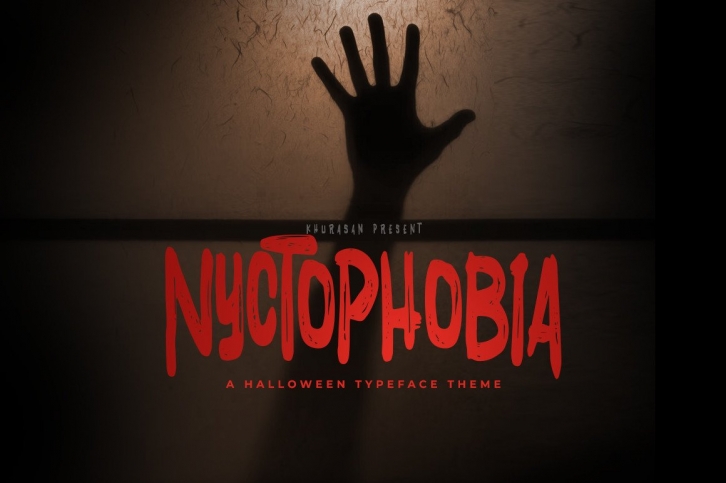
The Nyctophobia is a unique and attractive display font. Oddly enough, this font looks really good in a variety of contexts!
This font is suitable for designs with horror and Halloween concepts.
Emphasize horror in your designs by using this font.